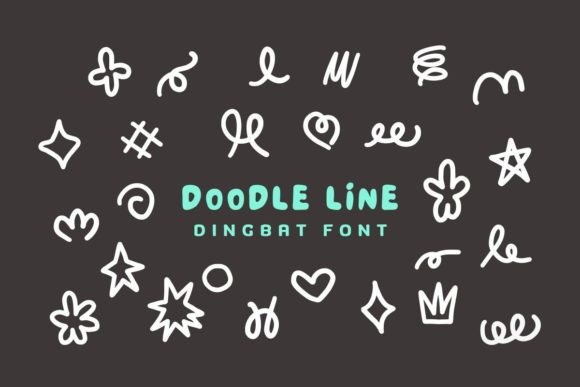
Dive into the wondrous realm of creativity with Doodle Line, an enchanting dingbats font family that's ready to ignite your imagination and turn your artistic visions into reality. Specifically crafted for the modern storyteller, Doodle Line is perfect for those who seek to add a touch of whimsy and charm to their projects.
With Doodle Line, you'll possess a versatile font that seamlessly adapts to your diverse design needs. Whether it's an eye-catching advertising post, an unforgettable invitation, a heartfelt greeting card, a cherished photo album, or an enchanting decoration, Doodle Line effortlessly elevates your creations with its playful and captivating presence.
Journey beyond the ordinary and explore the boundless possibilities of Doodle Line. Embark on a creative adventure, transforming everyday objects into whimsical works of art. Picture the smiles on children's faces as they discover Doodle Line adorning their favorite books, bags, and glasses. Unleash your inner artist and let Doodle Line guide you toward unique and captivating designs.